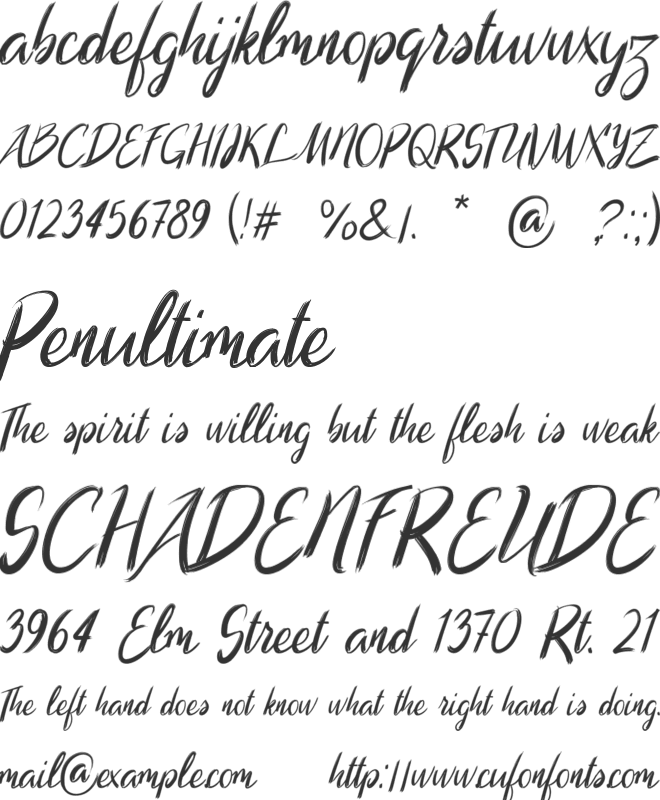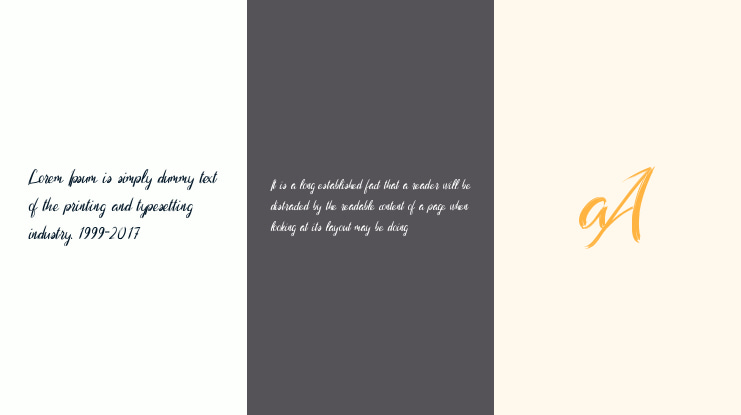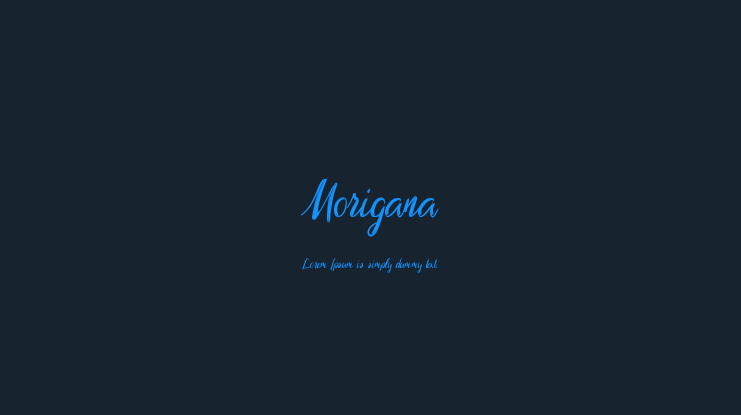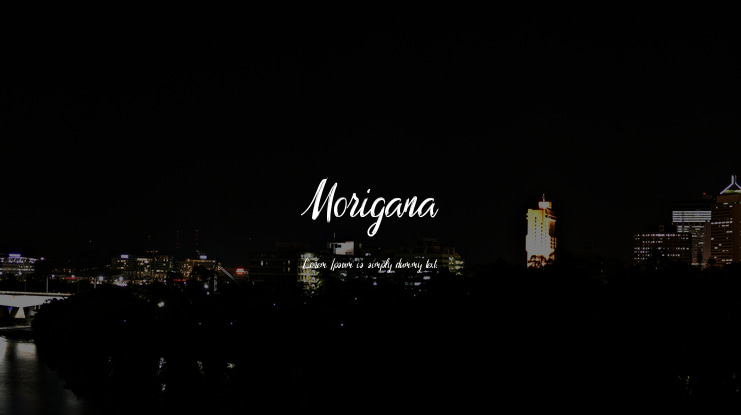
Morigana Font
Morigana is a type of hand brush calligraphy font. In combination and design, this font looks challenging and natural-looking paint. It has thick typography but still aesthetic and harmony. Perfect for branding, logotype, apparel, T-shirts, product packaging, invitation, magazine, quotes, flyers, posters, etc.